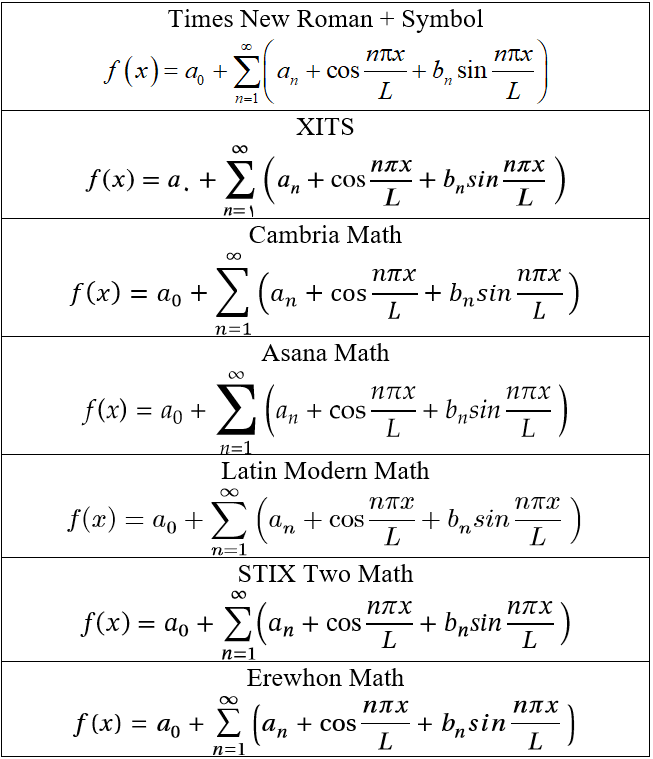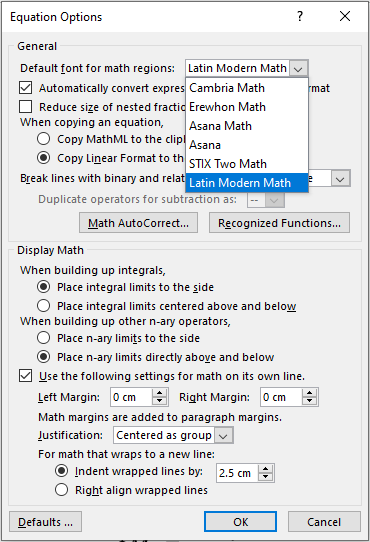
Microsoft Office Equation default font (Cambria Math)
Does anyone know of an alternative font for Cambria Math that looks similar to Times New Roman?
To change the default font you need to have math fonts. I could find some, but I need a font with the same characters that Time New Roman has. Here I send a screen of Equation Options that shows some fonts may be used for Equation.
Moderator Note: Latin Modern Math looks much like Times New Roman. Noto Sans Math apparently is also an available Math font.
Thanks Jay. I tried XITS Math and unfortunately there some fundamental mismatch between this font and Times New Roman. For example, since I need to have Persian language in my text and though my numeral sets as "Context", all numbers display in Persian. In the following a comparison of all math fonts containing Times New Roman + Symbol that should be used with MathType and the other math fonts that can be used with Office Equation is shown.
Here's a comparison of the same equation in Cambria Math and XITS Math: